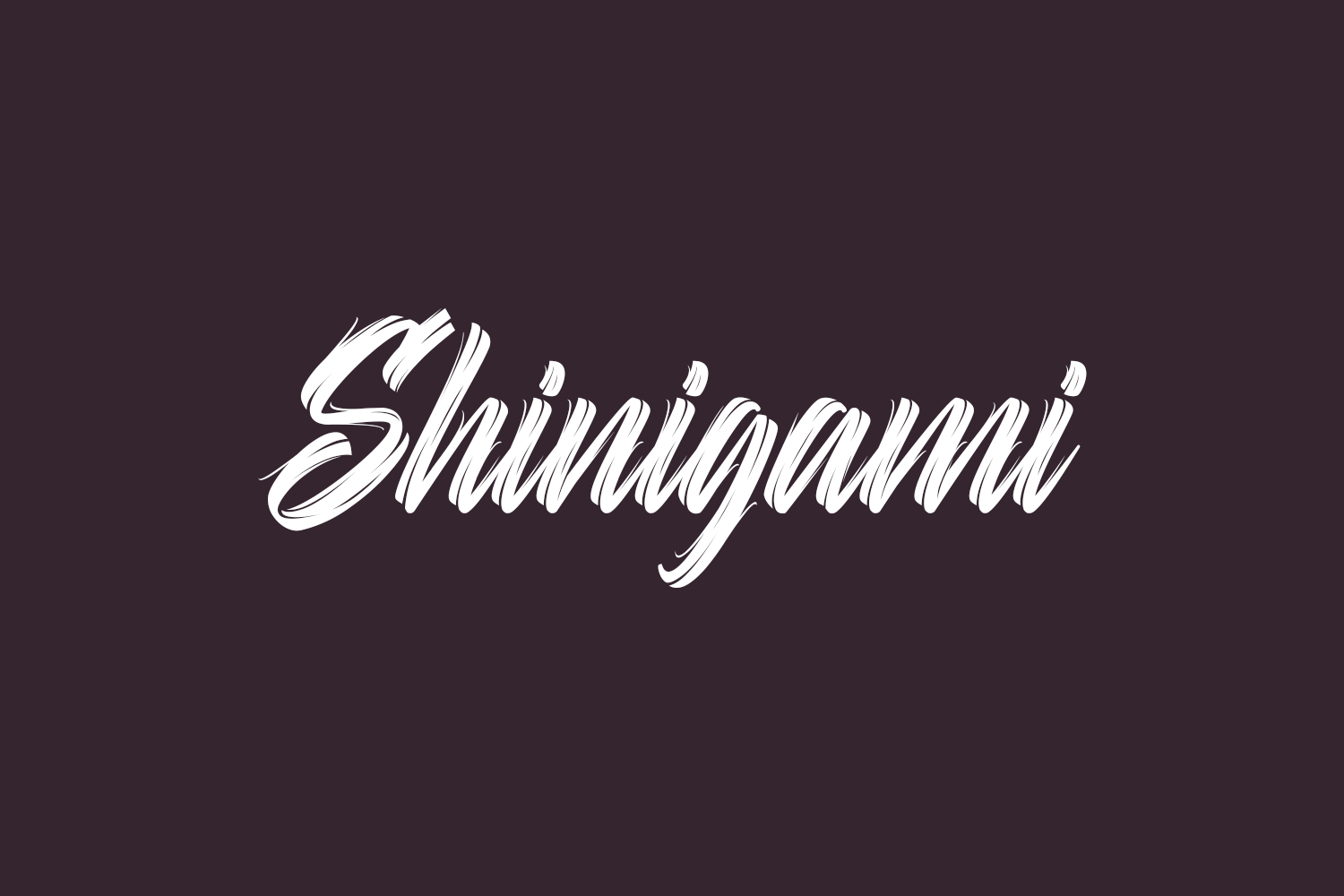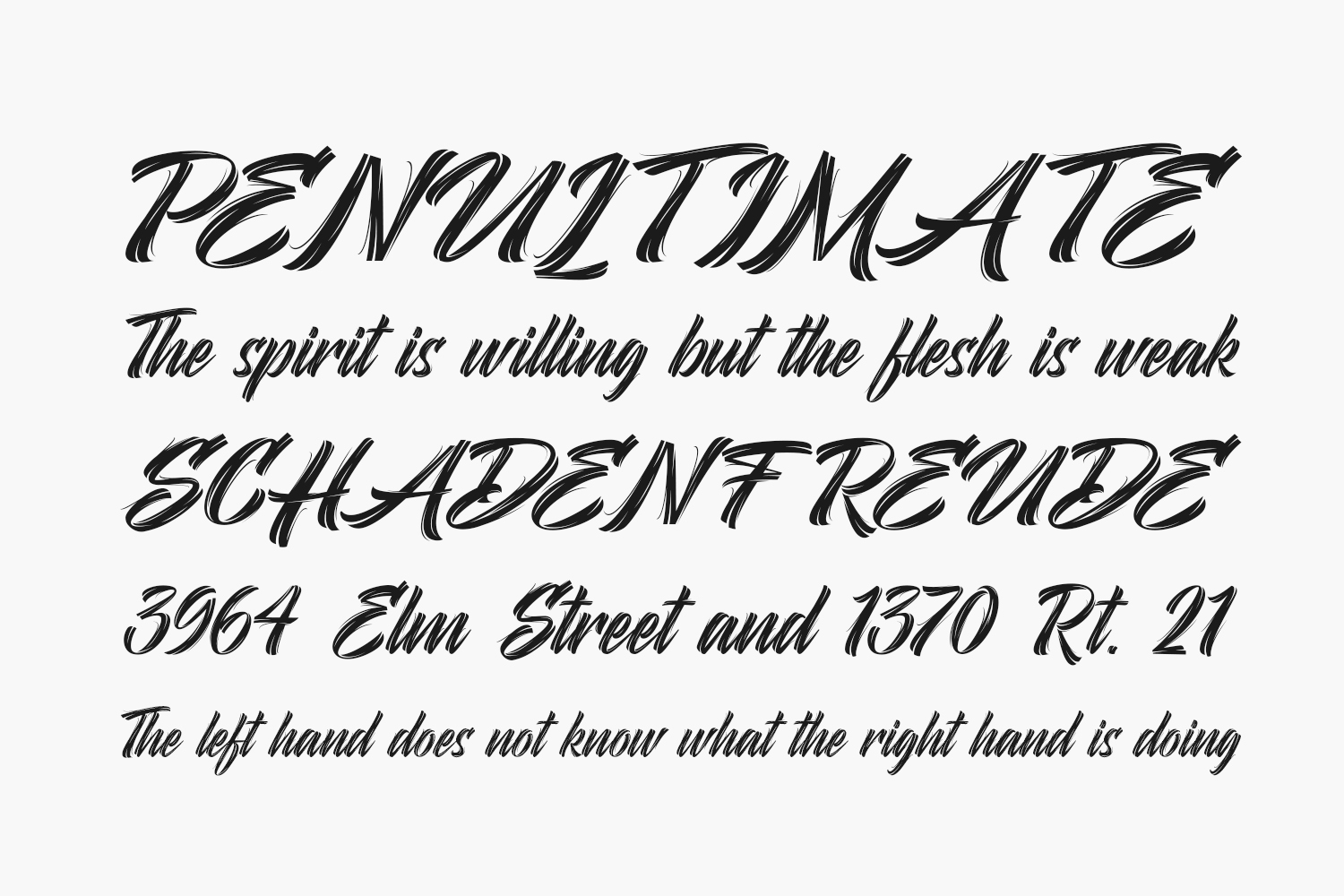
Shinigami Free Font is a gorgeous and bold handwritten font, crafted to give your headlines and logotype projects a retro touch. Shinigami Free Font is free for personal use only. Please purchase the full version for commercial use.
Designed by Hoperative